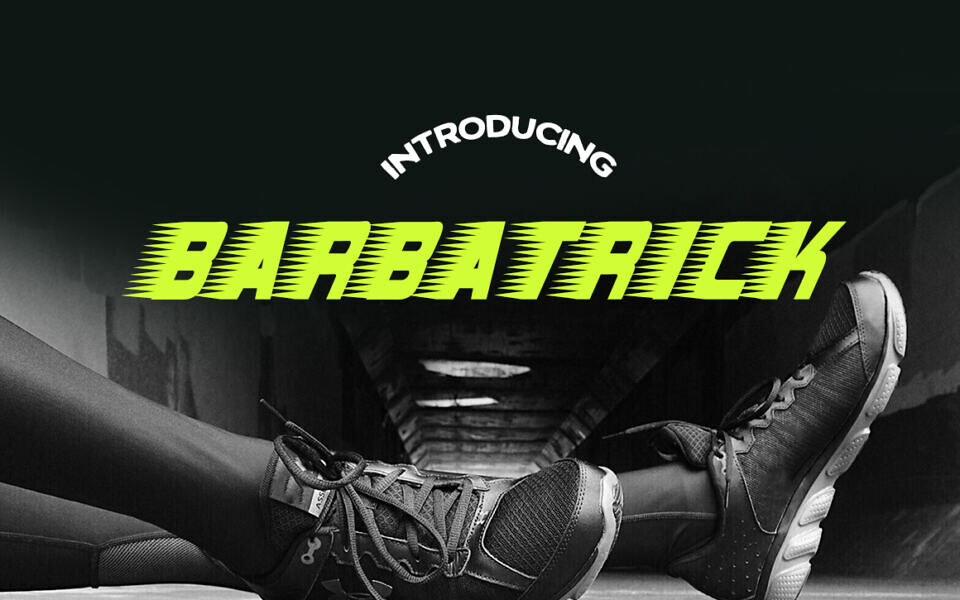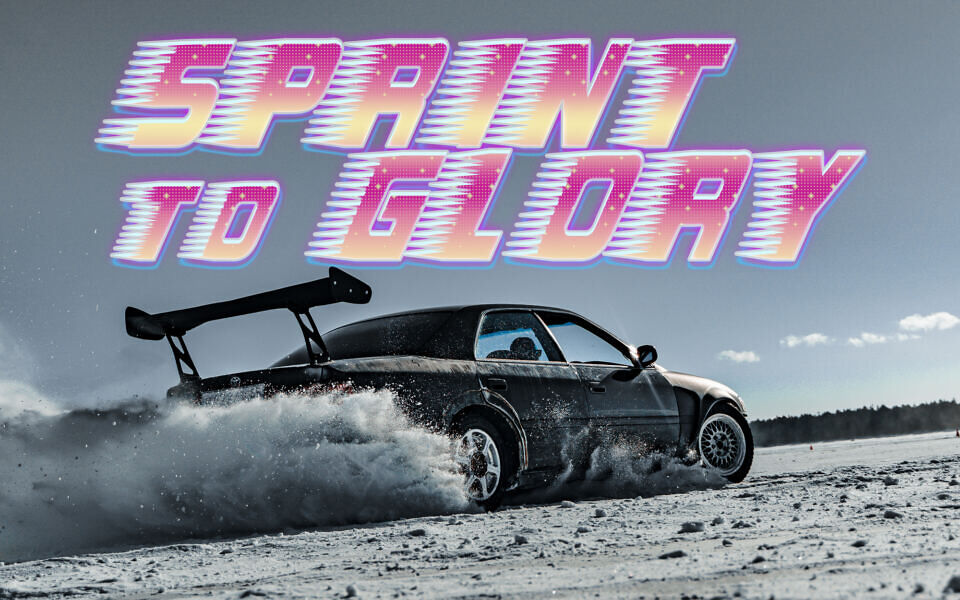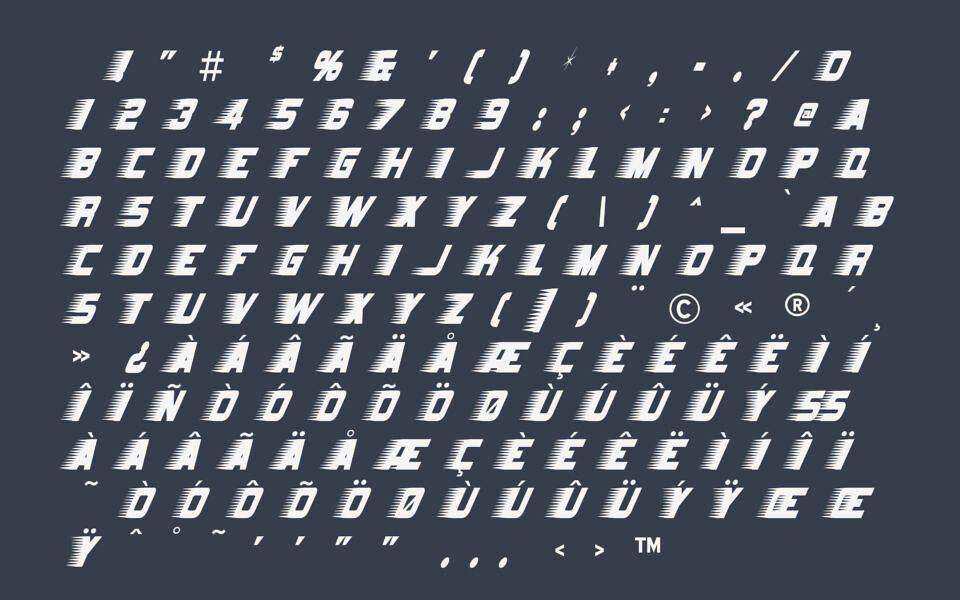
Barbatrick Font
Barbatrick is an edgy free font from Typodermic. Meant to simulate speed lines pointed by the wind, this decorative all caps font is ideal for sports themes and more.